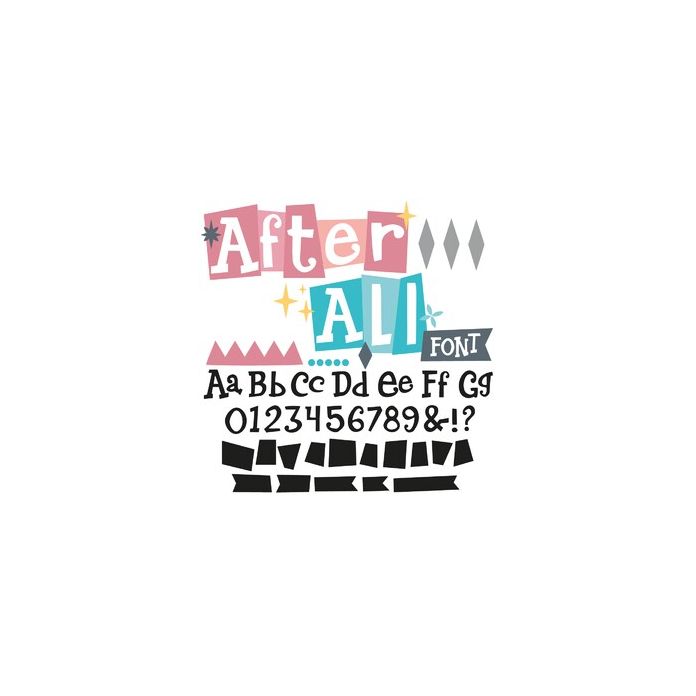
After All Fun Retro Font With Dingbats and Letter Backing Shape Squares. Characters are allocated to upper and lowercase keys and available via the character map / glyphs panel.